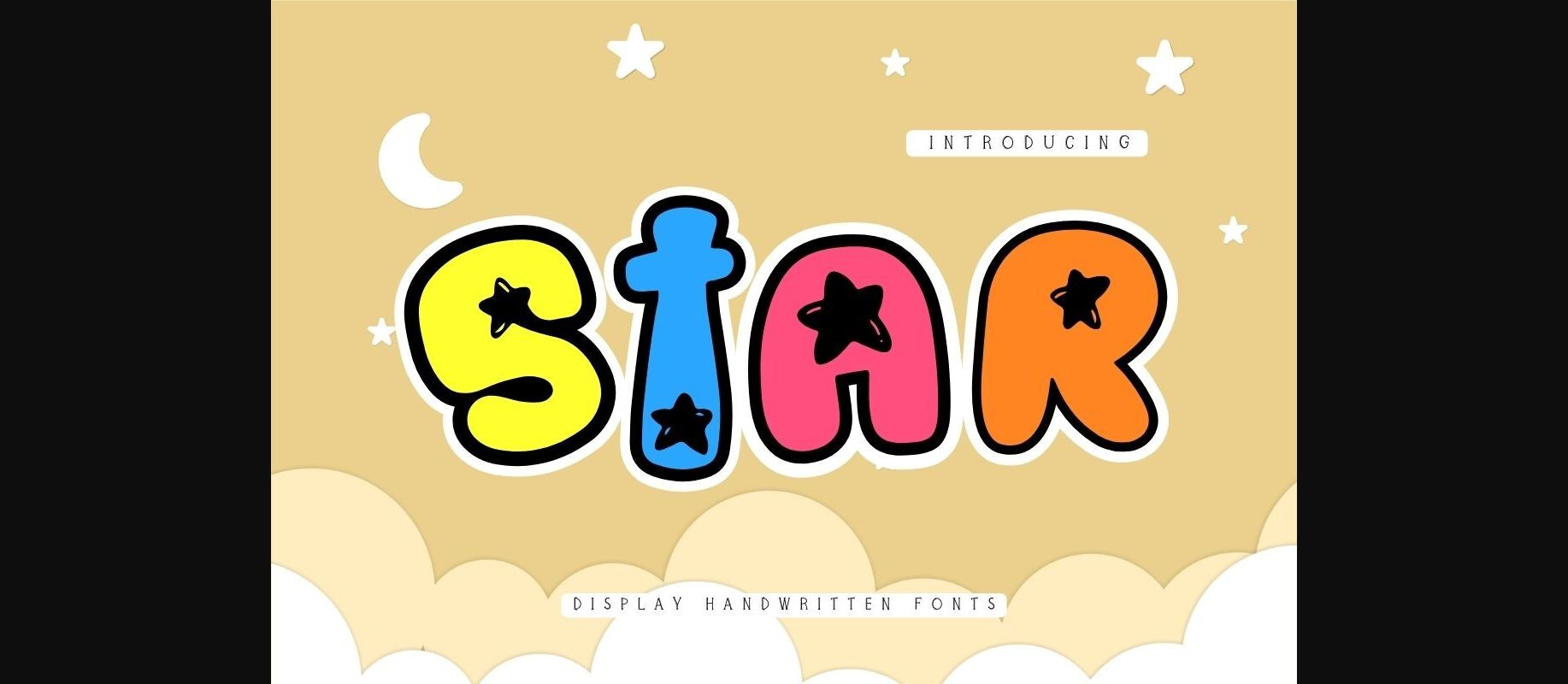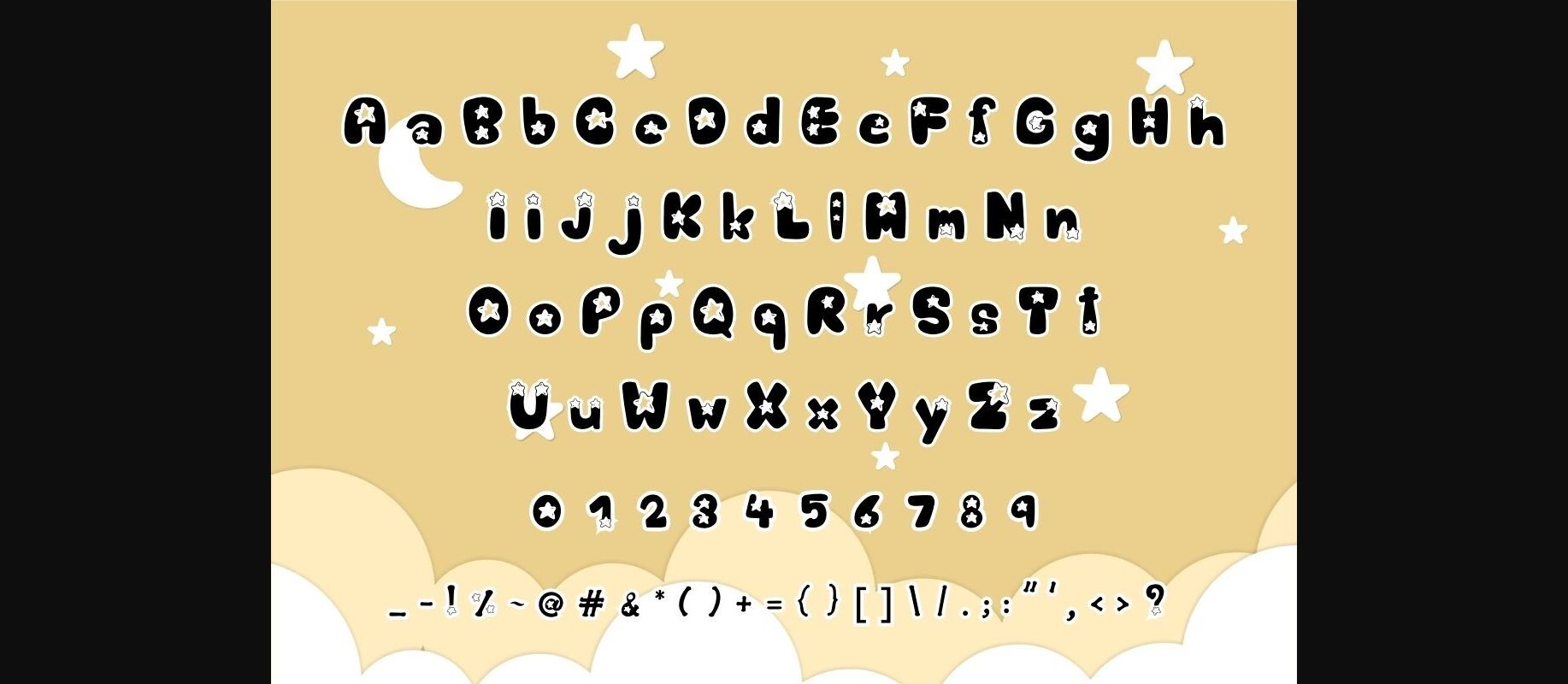
About Star Font
Star is a cute and funny display font. With its graceful and fluid letterforms, this font exudes a sense of playfulness that is perfect for posters, children-themed designs, stickers, and more!
This font is an adorable font for designs that need a cute and retro touch, such as back-to-school designs, kids designs, birthday invitations, summer designs, t-shirt designs, crafting, stickers, sublimation, and many more.